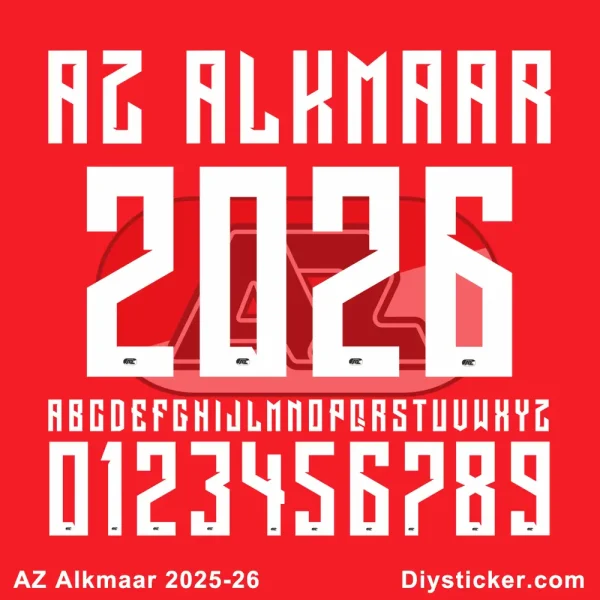
AZ Alkmaar 2025-26 Font Downloads
AZ Alkmaar 2025-26 Font Download Package: Ultimate Kit Creator Resource
Get the authentic look of the AZ Alkmaar 2025-2026 season jersey with this complete font download package. This unique, stylized font is perfect for recreating the official player names and numbers seen on the pitch.